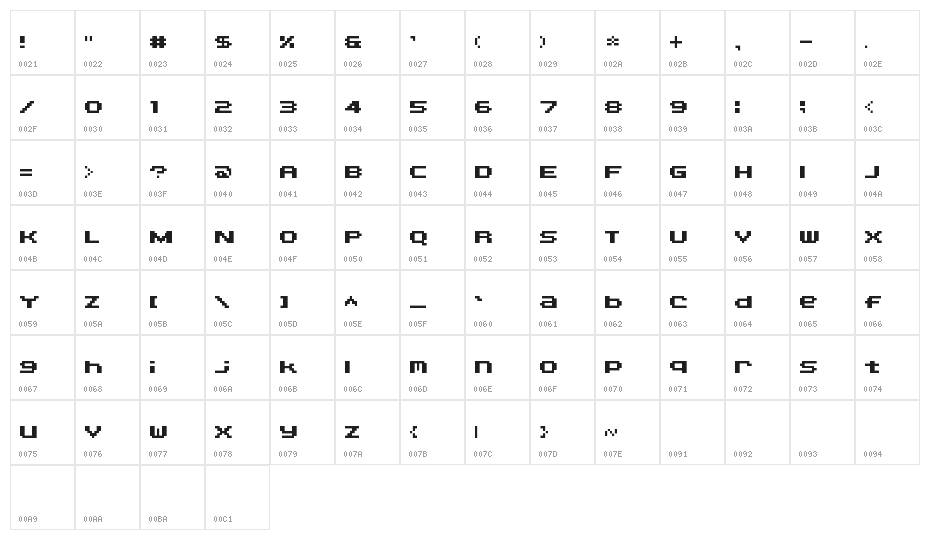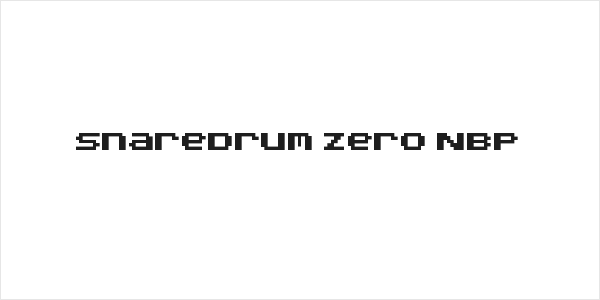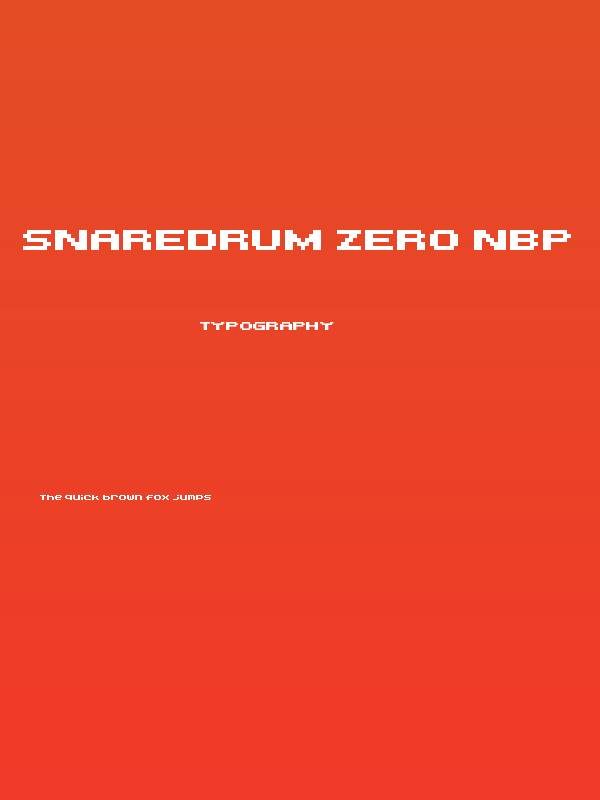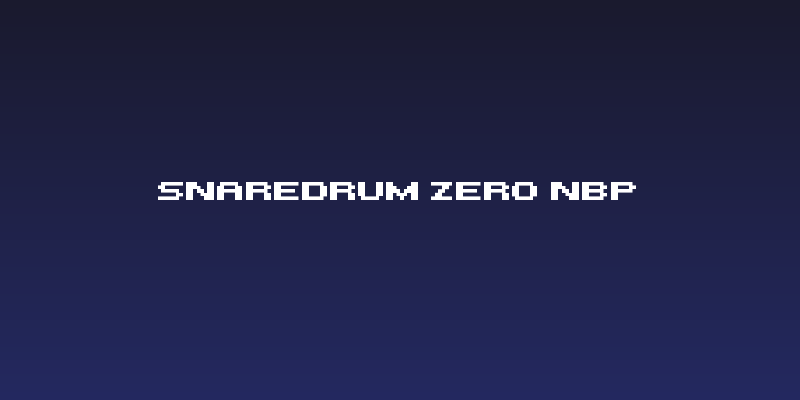
SnareDrum Zero NBP Font
SnareDrum Zero NBP Description
This font features a bold, pixelated style reminiscent of retro video games and digital displays. The characters are constructed with a blocky, grid-like appearance, giving it a distinctly digital and geometric feel. The uppercase and lowercase letters maintain a consistent height, contributing to a uniform look. Numbers and special characters follow the same pixelated design, ensuring cohesion across all glyphs. The font's simplicity and clarity make it highly legible, even at smaller sizes. Its unique style is perfect for projects that aim to evoke nostalgia or a tech-savvy aesthetic.
| Overall Style | Retro, Digital |
| Use Case | Headlines, Logos, Digital displays |
| Proposed Projects | Ideal for video game design, tech-themed posters, digital art projects, and retro-inspired branding. |